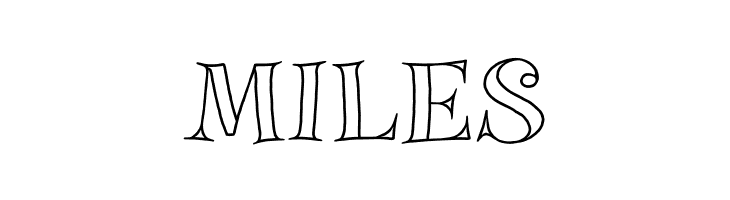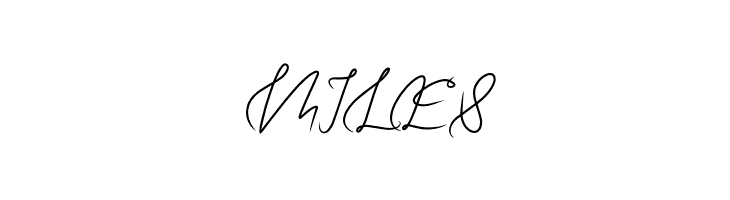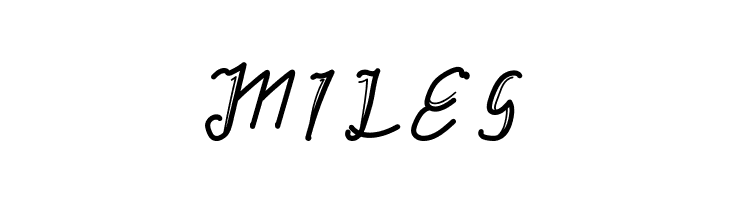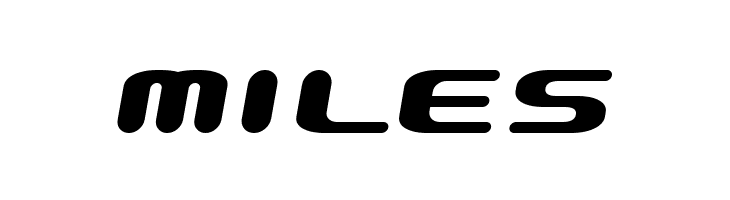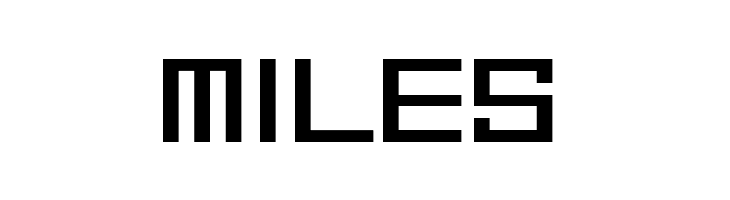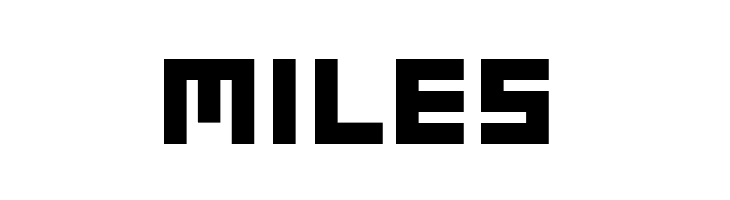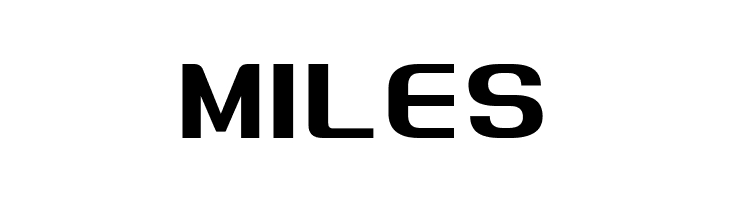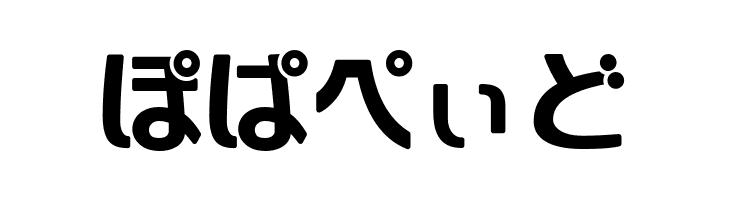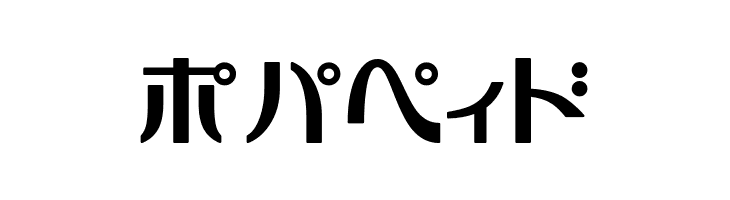
An elegant and fluid script font with interconnected letterforms and a sophisticated style.
A bold, geometric font with a pixelated, retro digital style.
A pixelated, blocky font with a retro digital aesthetic.
A modern, semi-rounded font with a clean, geometric style.
A bold, geometric font with rounded edges and a modern, futuristic style.
A bold, dynamic script font with elegant curves and dramatic angles.
A mosaic-patterned font with a bold, artistic style.
A bold, angular font with a futuristic and geometric style.
A bold, rounded font with a playful and modern style.
A modern, multi-line font with a geometric and dimensional style.
A bold, geometric font with a modern and cohesive design.
A bold, geometric font with a futuristic and modern style.
A bold, geometric font with a modern and clean aesthetic.
A bold, dynamic font with sharp, angular strokes and a modern calligraphic style.
A sleek, modern font with a futuristic and dynamic design.
A sleek, modern font with a futuristic and dynamic style.
A bold, rounded font with a playful and modern style.
A bold, futuristic font with dynamic, slanted characters.
A playful, modern font with rounded edges and a dynamic, slightly condensed style.
A bold, geometric font with a modern and minimalistic design.
A bold, modern sans-serif font with geometric shapes and consistent stroke width.
A modern, rounded, geometric font with a clean and uniform design.
A bold, retro-style font with thick, rounded edges and a playful design.
Bold, rounded font with a playful and modern style.
A modern, elongated font with a sleek, geometric style.
A clean, modern font with geometric shapes and balanced spacing.
A bold, angular font with a futuristic and geometric design.
A decorative serif font with elegant curves and high contrast, perfect for striking displays.
A flowing, cursive script font with elegant, sweeping strokes.
A lively, cursive script font with interconnected letters and moderate stroke thickness.